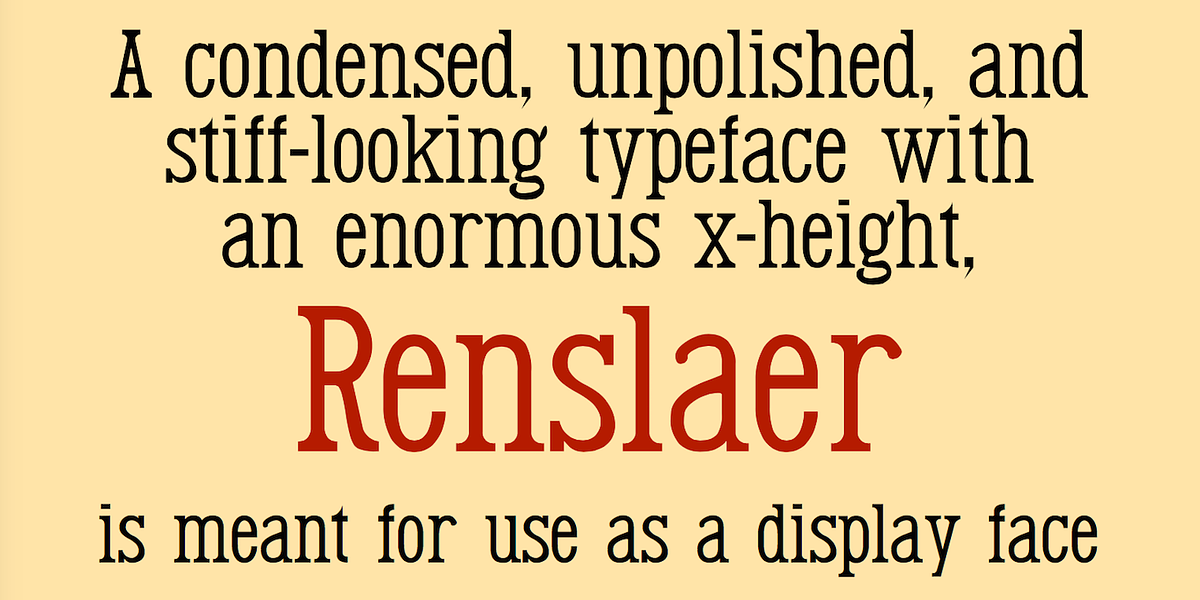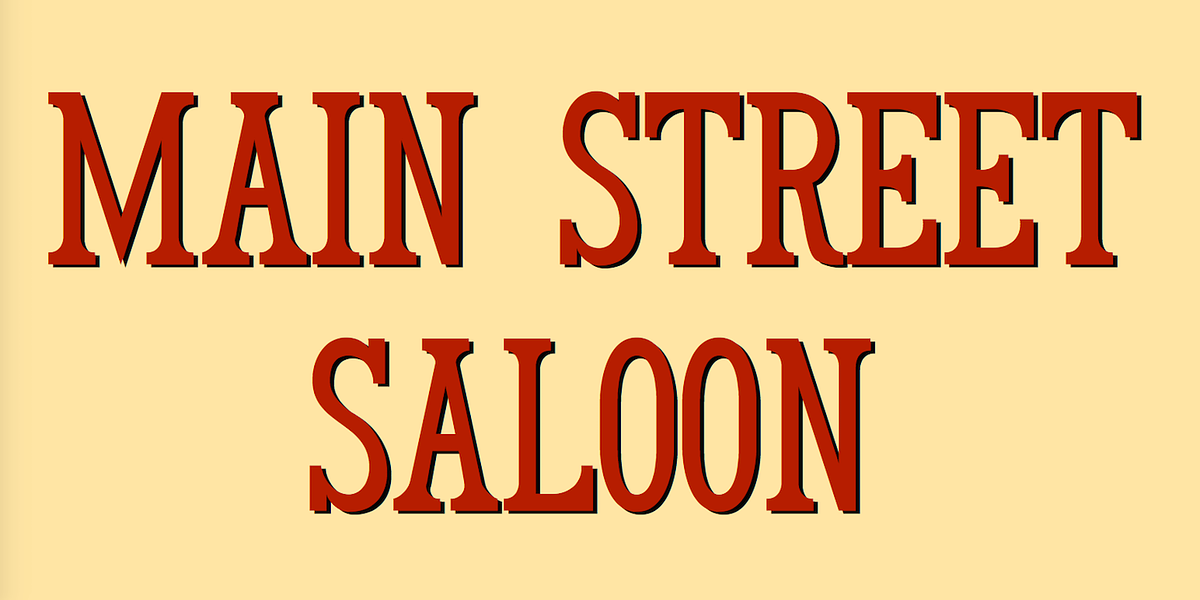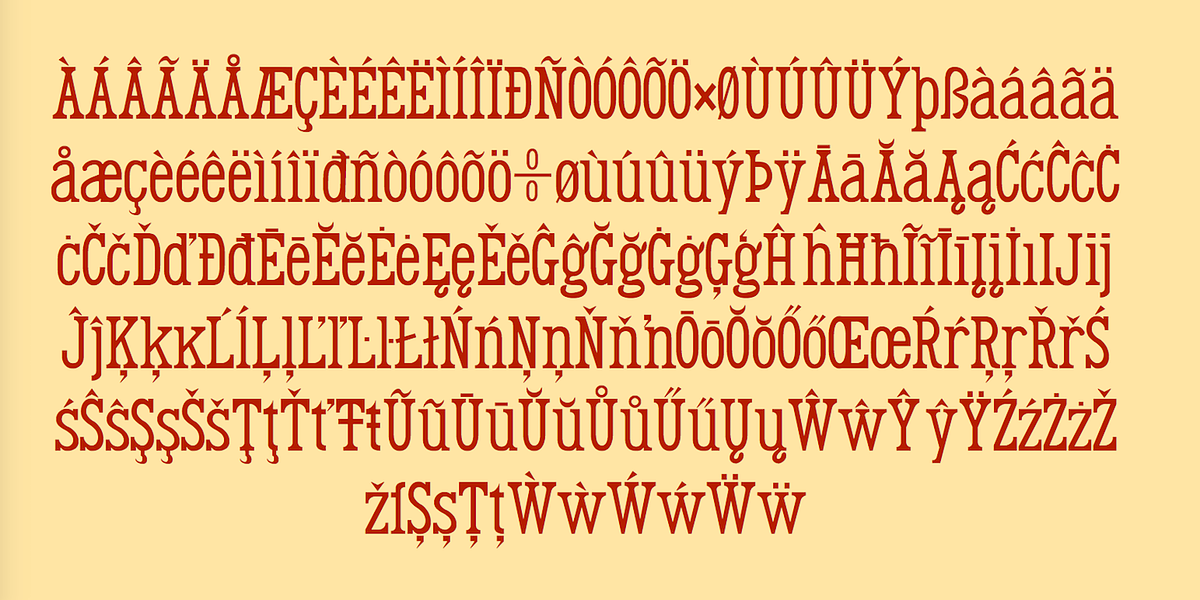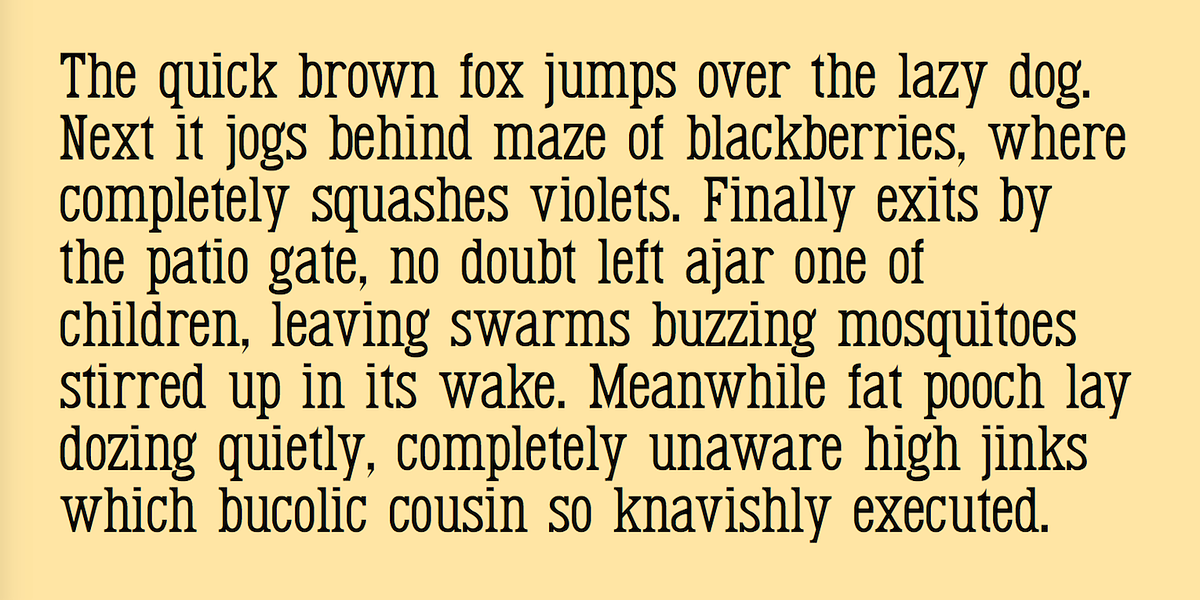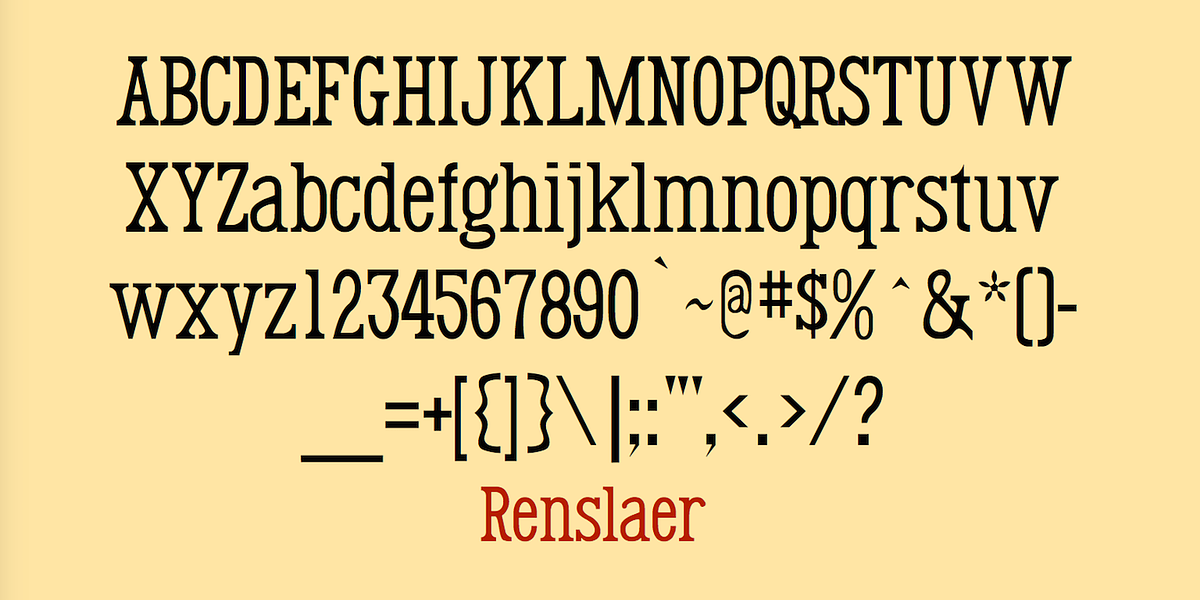
Renslaer
Renslaer is a serif typeface designed for display purposes. It's characterized by its condensed letterforms and a notably large x-height. The font evokes the style of 19th century display faces, often known for their less polished aesthetic.